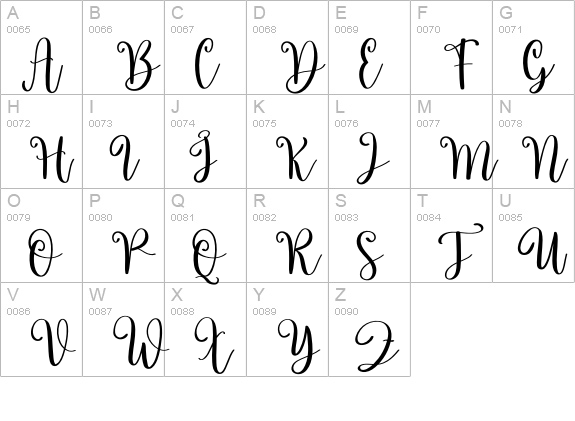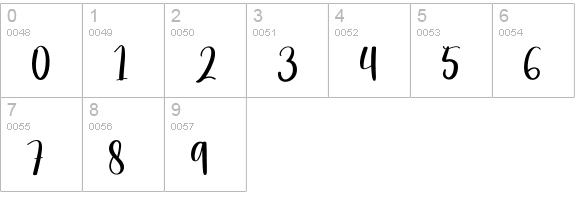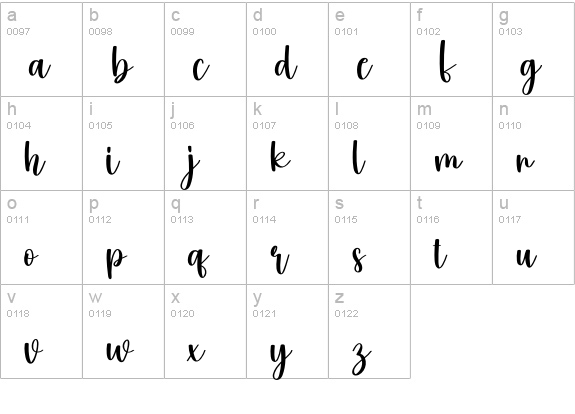
The Nativity Font Details
The Nativity is a free for personal use font in the Script > Handwritten category, designed by scratchones. It has been downloaded 12 times and is available for Windows, Mac and Linux.
The Nativity font is a beautiful and elegant typeface inspired by the classic calligraphy styles of the Nativity scene. Its graceful curves and intricate details evoke a sense of timelessness and spirituality, making it perfect for adding a touch of sophistication to your designs. This font is versatile and can be used for a wide range of projects, from wedding invitations to holiday cards and more.